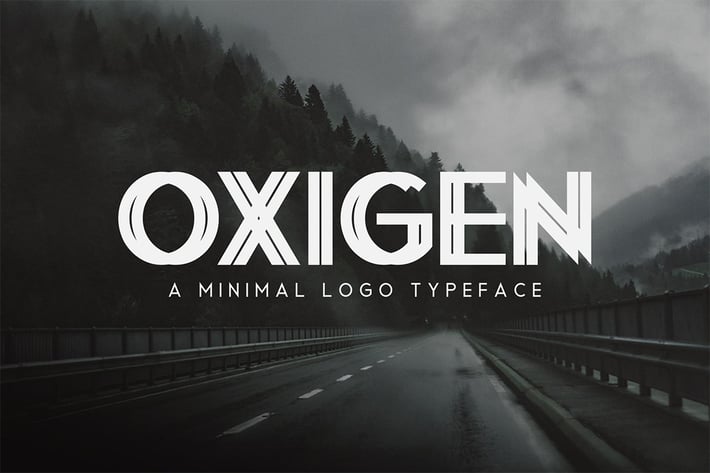
Oxigen | A Minimal Logo Typeface
Introducing OxigenTypeface – A minimalist and awesome character! With different style, it’s perfect for logos, name card, magazine layouts, invitations, headers, or even large-scale artwork.